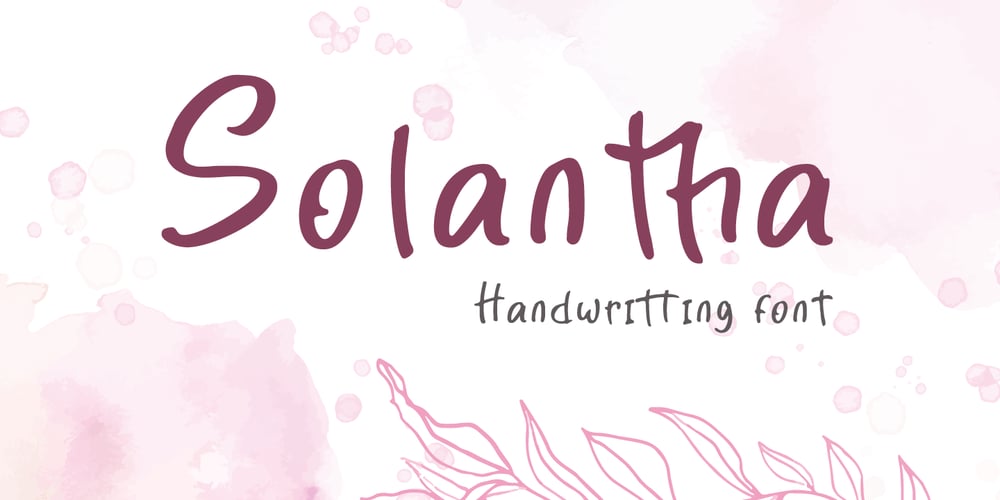
Solantha
Solantha font
Solantha Font Family was designed by Fadli Ramadhan Iskandar and published by Attype Studio. Solantha contains 1 styles and family package options. Solantha is handwritting font with ligatures. This font perfect for wedding theme design.Combine it with Solantha ligatures to make perfect design for yor projects. Solantha perfect for wedding invitation, promotion, wedding invitation, branding, logo, invitation, stationery, social media post, product packaging, merchandise, blog design, game titles, cute style design, Book/Cover Title and more.What’s Included :- Solantha- Ligature- Multilingual Support —Hope you enjoy with our font!Attype Studio